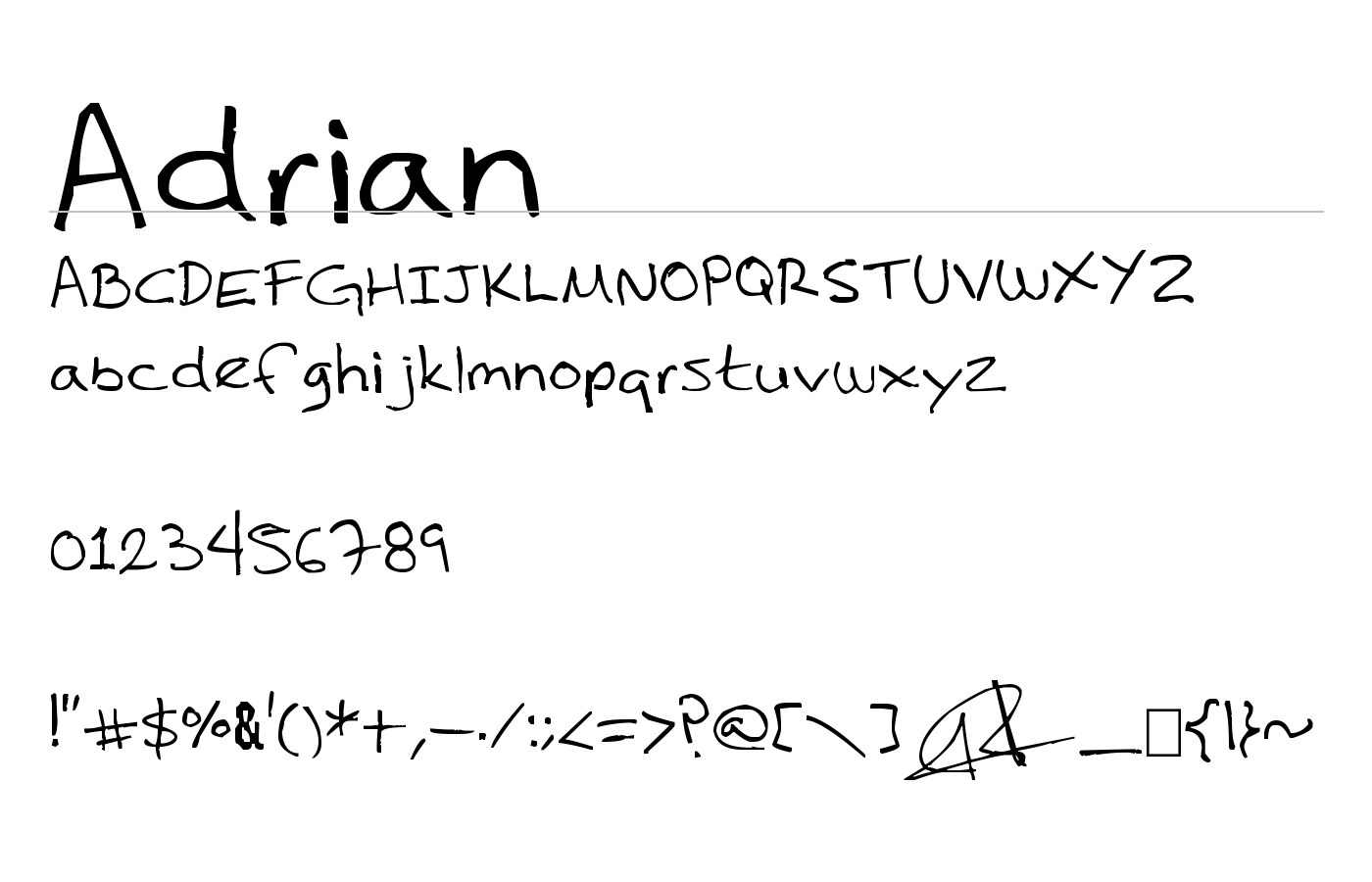
Adrian is a casual, handwritten-style sans serif font that captures a playful and approachable vibe with its irregular, sketch-like strokes and uneven letterforms. It features a light weight and normal width with a lively, informal personality that makes it ideal for creative projects, children's materials, or branding that aims to feel personal and friendly. This font works well in headlines, logos, or any design needing a touch of whimsy and warmth.
Adrian Font